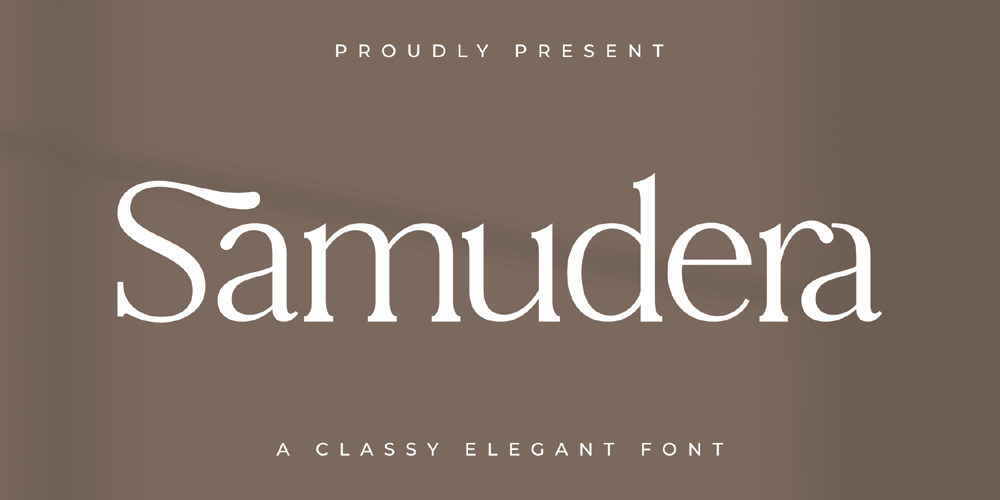
Samudera
Samudera font
Samudera Font Family was designed by Heru Utama Putra and published by Letterena Studios. Samudera contains 2 styles and family package options. Proudly present Samudera Typeface, a modern and classic serif with a unique style and dancy look. This typeface is perfect for an elegant & luxury logo, book or movie title design, fashion brand, magazine, clothes, lettering, quotes, and so much more.